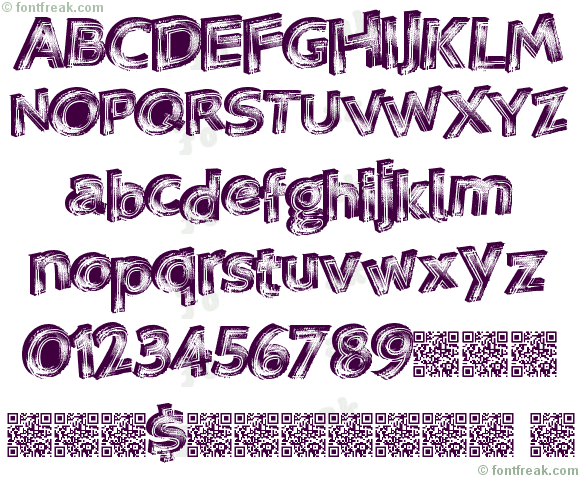
VegasNeon
VegasNeon by XEROGRAPHER FONTS is a striking display font that embodies the vibrant spirit of Las Vegas. Released in 2013, this font showcases a unique decorative style, making it perfect for capturing attention in various design projects. The visual characteristics of VegasNeon include a bold stroke weight and a playful, hand-drawn appearance that mimics the glow of neon signs. The letters are slightly condensed, allowing for efficient spacing while maintaining readability, and the rounded edges add a friendly, approachable vibe.
This font is particularly well-suited for use cases that benefit from its dynamic and lively aesthetic. Ideal applications include movie posters that aim to evoke excitement, restaurant menus that highlight a fun dining experience, event flyers for parties or concerts, and even social media graphics that require a touch of flair. The VegasNeon font free download offers an accessible option for graphic designers, small business owners, and content creators looking to enhance their projects with a unique typographic element.
The target audience for this font includes those in the creative fields, such as graphic designers seeking to add a bold statement to their designs, as well as small business owners looking to promote their establishments in a captivating way. Content creators will also find this font appealing for their marketing materials, social media posts, and promotional graphics.
What sets the VegasNeon font apart is its ability to convey excitement and energy, making it a standout choice for any design project that requires a touch of the extraordinary. Its distinctive style not only grabs attention but also communicates a sense of vibrancy and fun, ensuring that any message is delivered with flair.